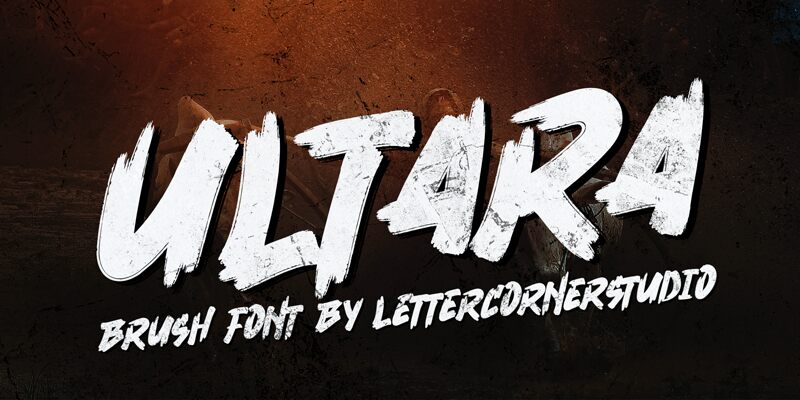
Ultara font designed by Mocha Frappuccino is a unique and eye-catching brush font. It is a display typeface created to have a lasting impression every single time. The font is composed of hard-edged brush strokes that give it an energetic and dynamic presence. Ultara has expressive texture and letters that reflect contemporary urban influences. Feel free to download, install, and enjoy using this casual display font immediately.
Ultara can have a strong visual impact when used in posters and gaming interfaces. The font is also perfect for branding projects, logotypes, packaging designs, and other work requiring artistic expression. If you are working on casual magazine covers, headline designs, or even business cards, you should add this typeface to your arsenal.